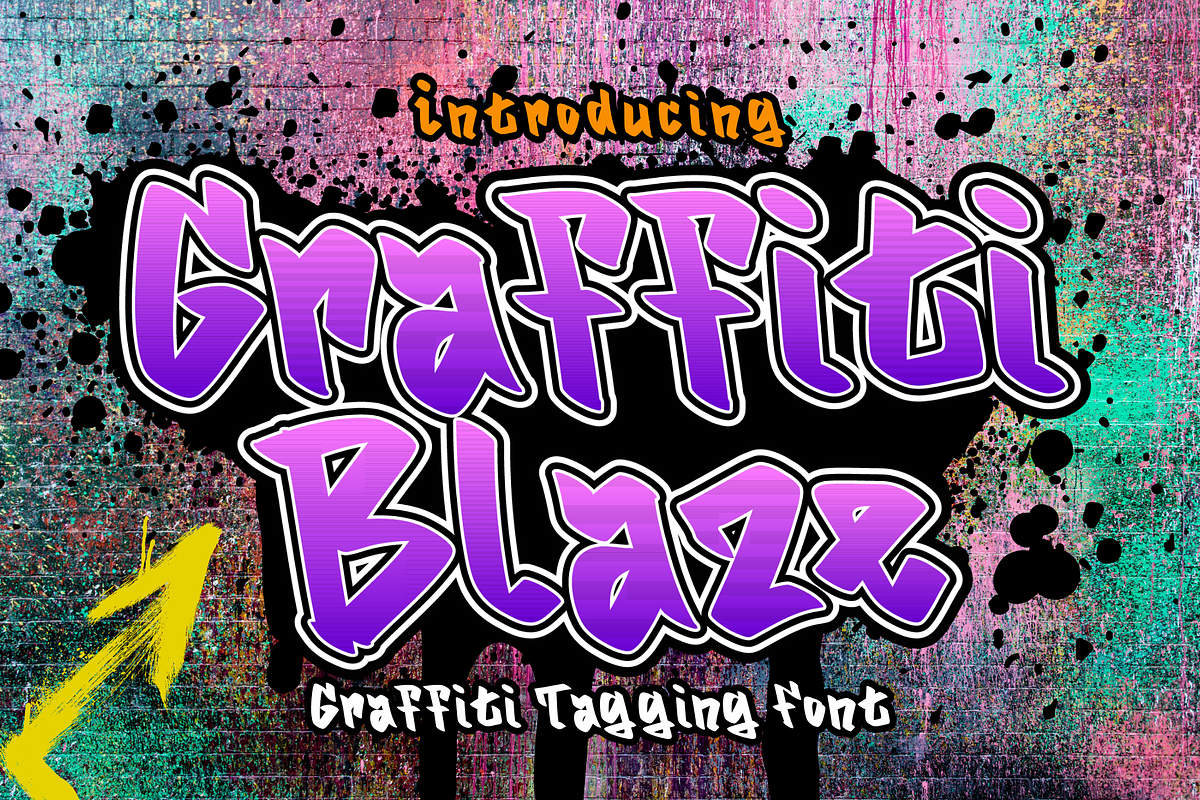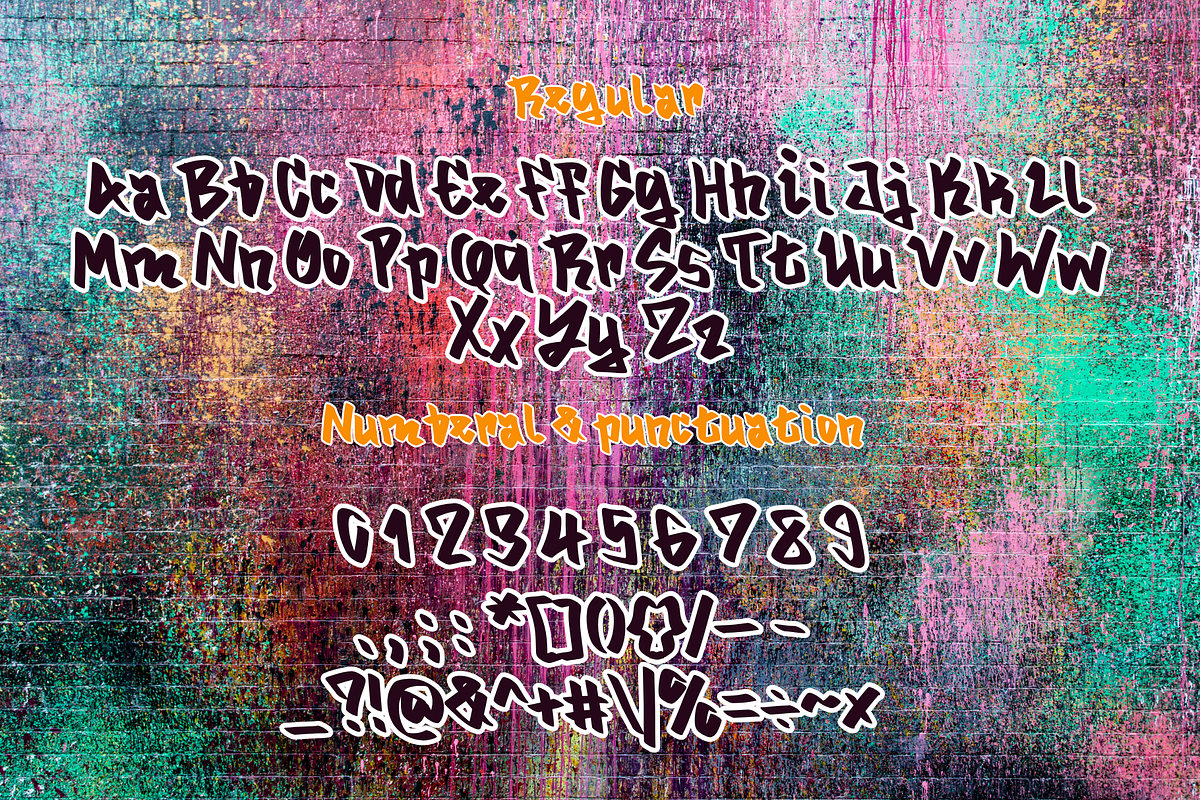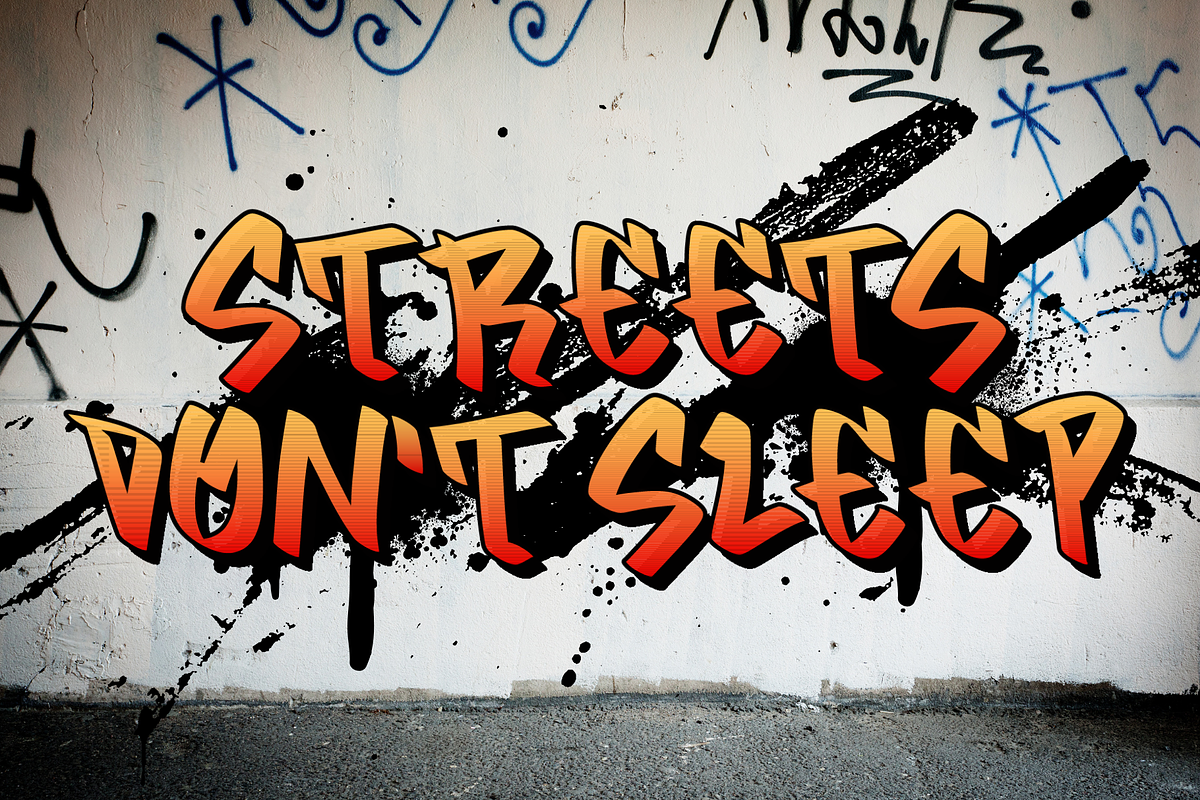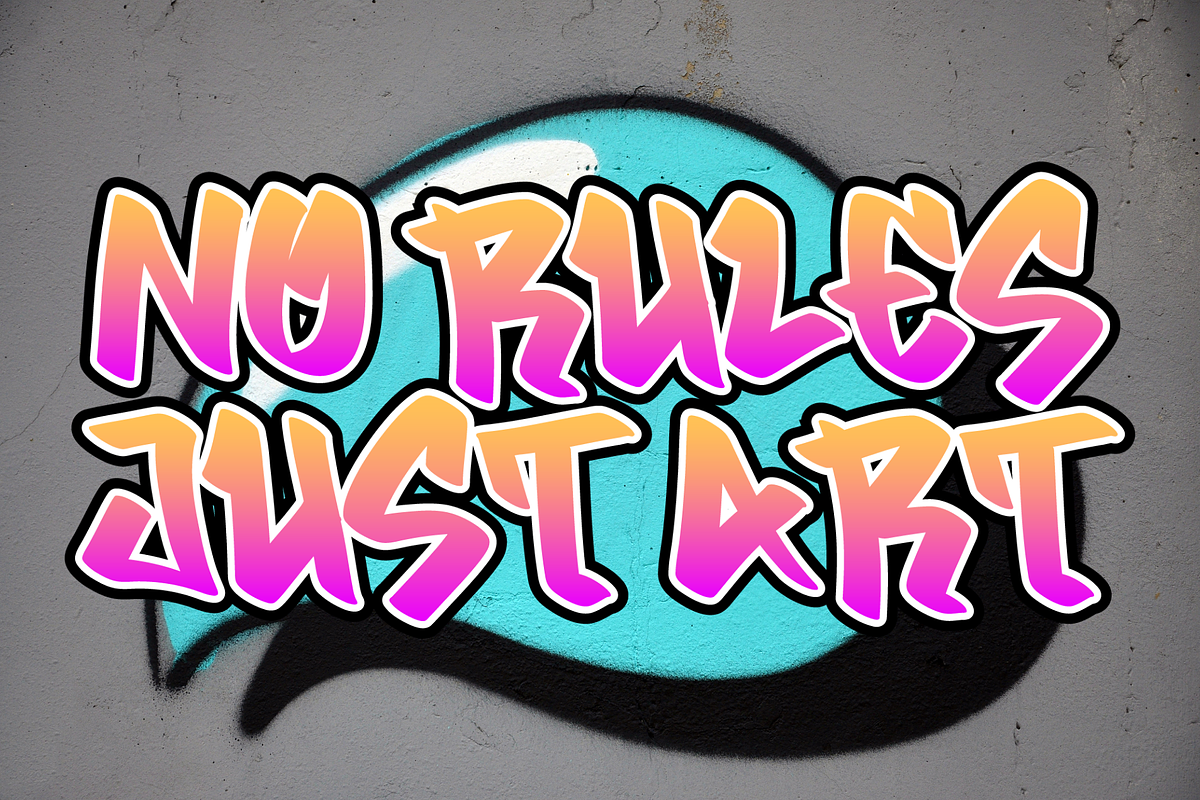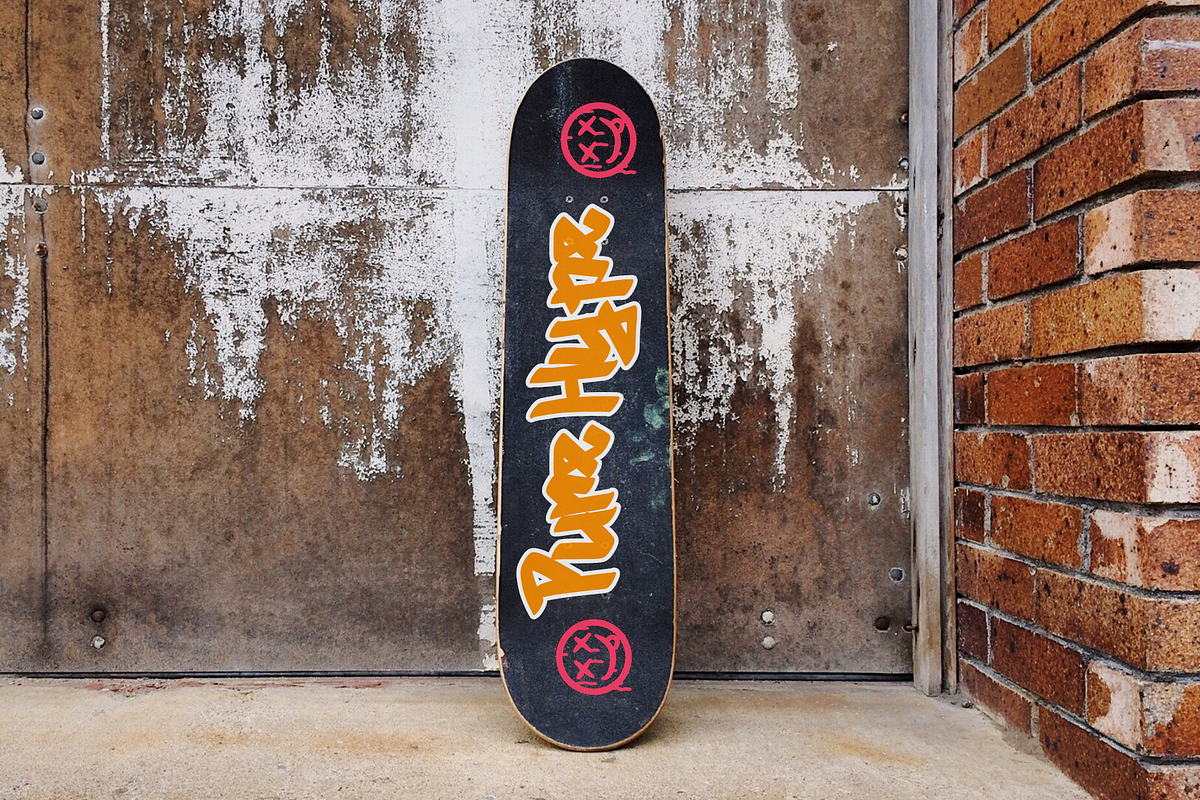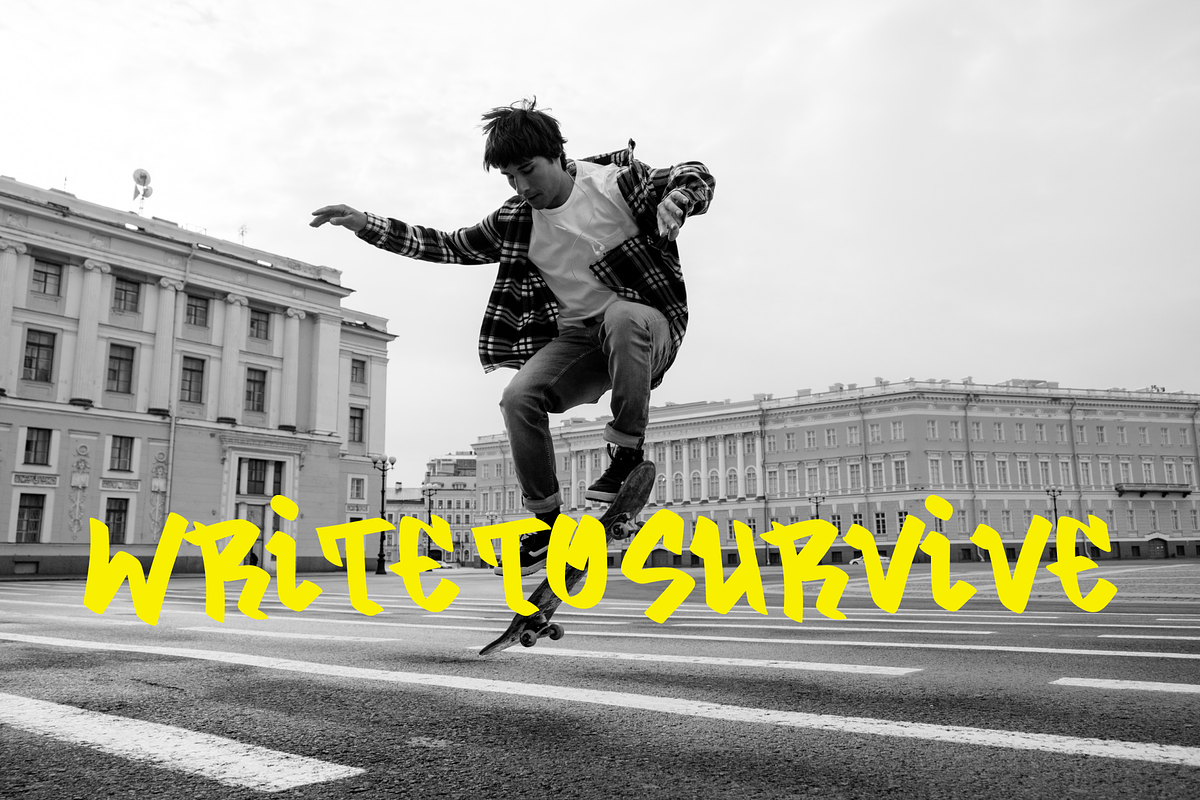
Graffitti Blaze - graffiti tagging
Graffitti Blaze is a graffiti tagging font that captures the raw intensity of urban street art. With its sharp strokes, fluid motion, and rebellious spirit, this font ignites every letter like a flame on concrete. Perfect for streetwear designs, music covers, skate brands, or any creative work that craves attitude and authenticity. Graffitti Blaze doesn’t whisper—it shouts.